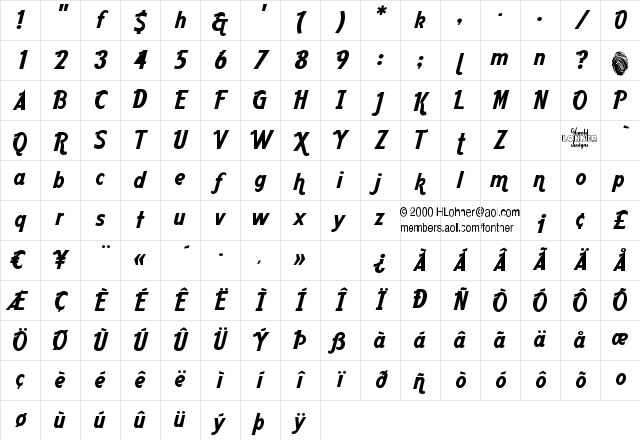
Complete Aardvark Cafe Regular glyph index. Displaying only characters natively supported by Aardvark Cafe Regular font.
Aardvark Cafe is a composed and adaptable typeface that performs quietly and consistently across a wide range of design contexts.